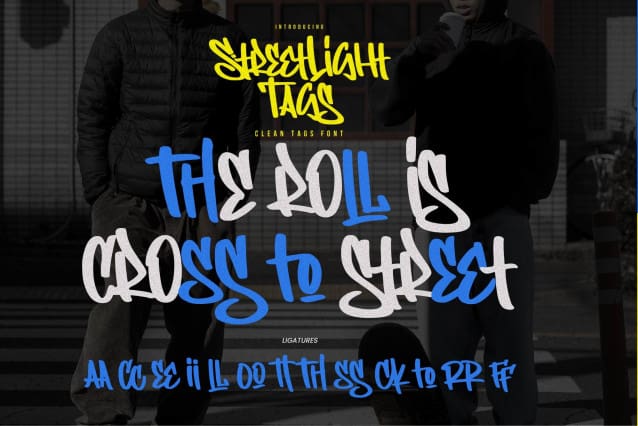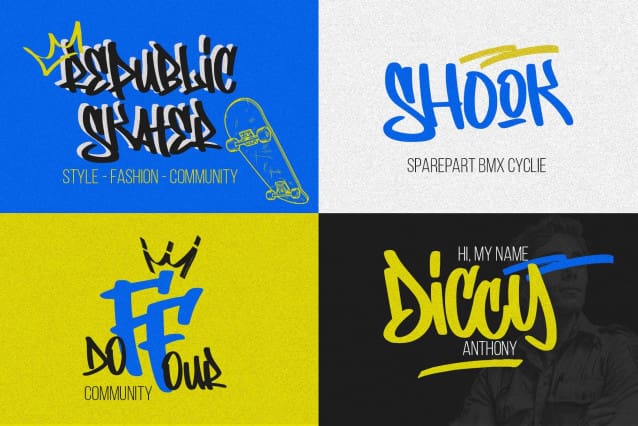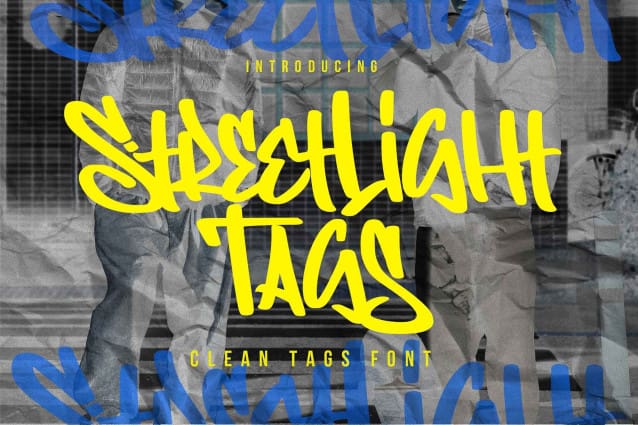
Streetlight Tags Font
Streetlight Tags This is a Clean Tags Font, this is a graffity font with more alternates and tags font, this font is perfect for making a strong statement in your designs.
Add the bold and authentic character of this Font to your next project and capture the essence of the minimalist aesthetic.